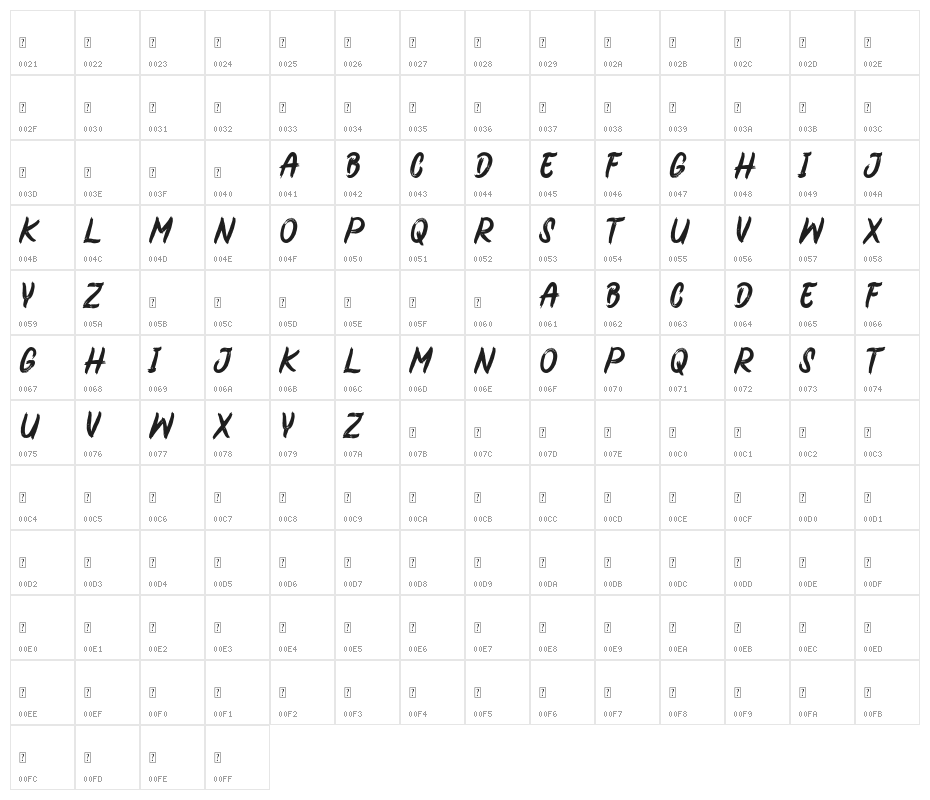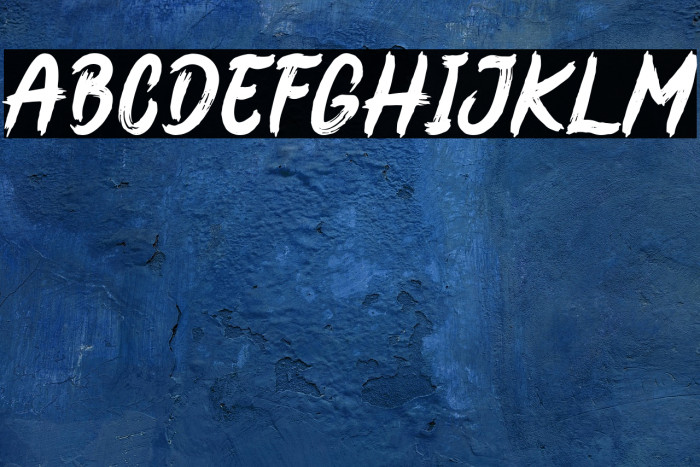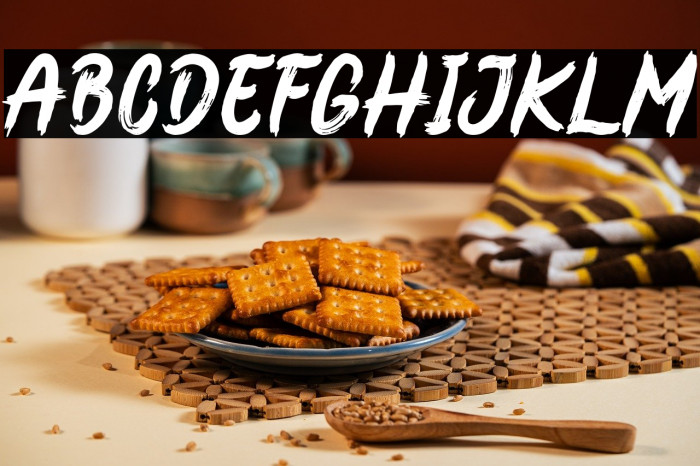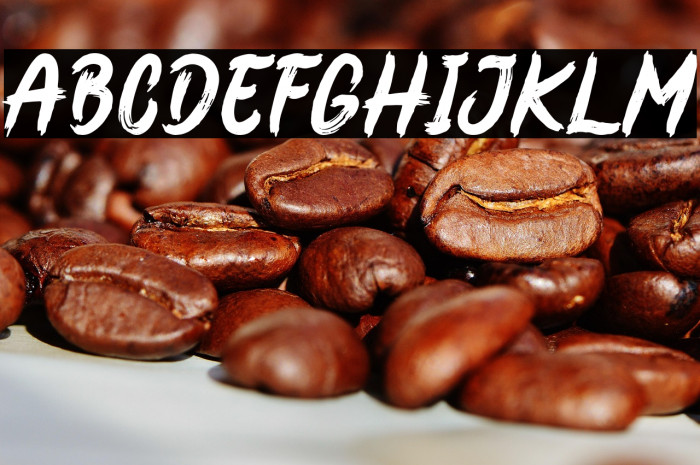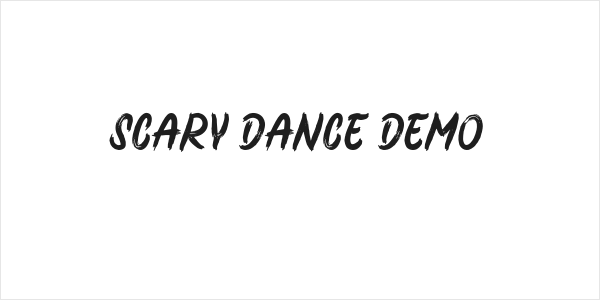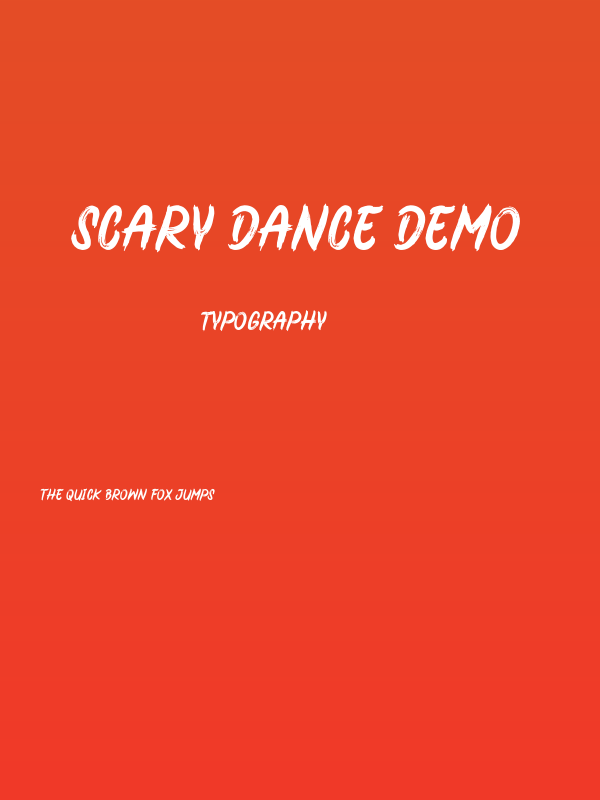
Scary Dance Demo Font
Scary Dance Demo Description
This font features a bold, expressive brush style that exudes energy and movement. The strokes are dynamic and irregular, giving each character a unique, hand-painted appearance. The uppercase letters are particularly striking, with dramatic flourishes and varying stroke widths that create a sense of urgency and excitement. The lowercase letters maintain this energetic style, complementing the uppercase with their own flair. The font's overall look is both artistic and edgy, making it ideal for projects that require a bold statement. The lack of uniformity in the strokes adds to its charm, making it perfect for creative and unconventional designs.
| Overall Style | Modern, Artistic |
| Proposed Projects | Ideal for posters, album covers, event flyers, and any project needing a bold, artistic touch. |